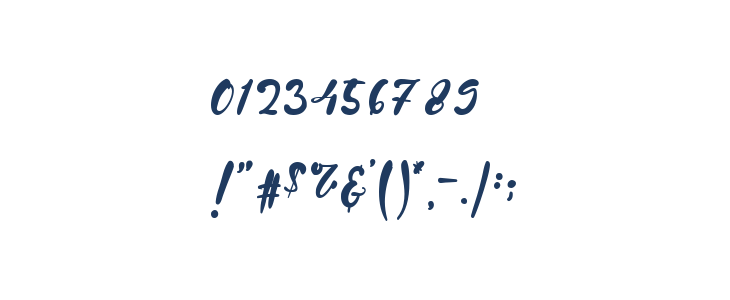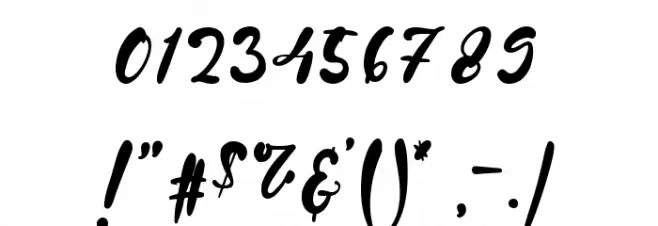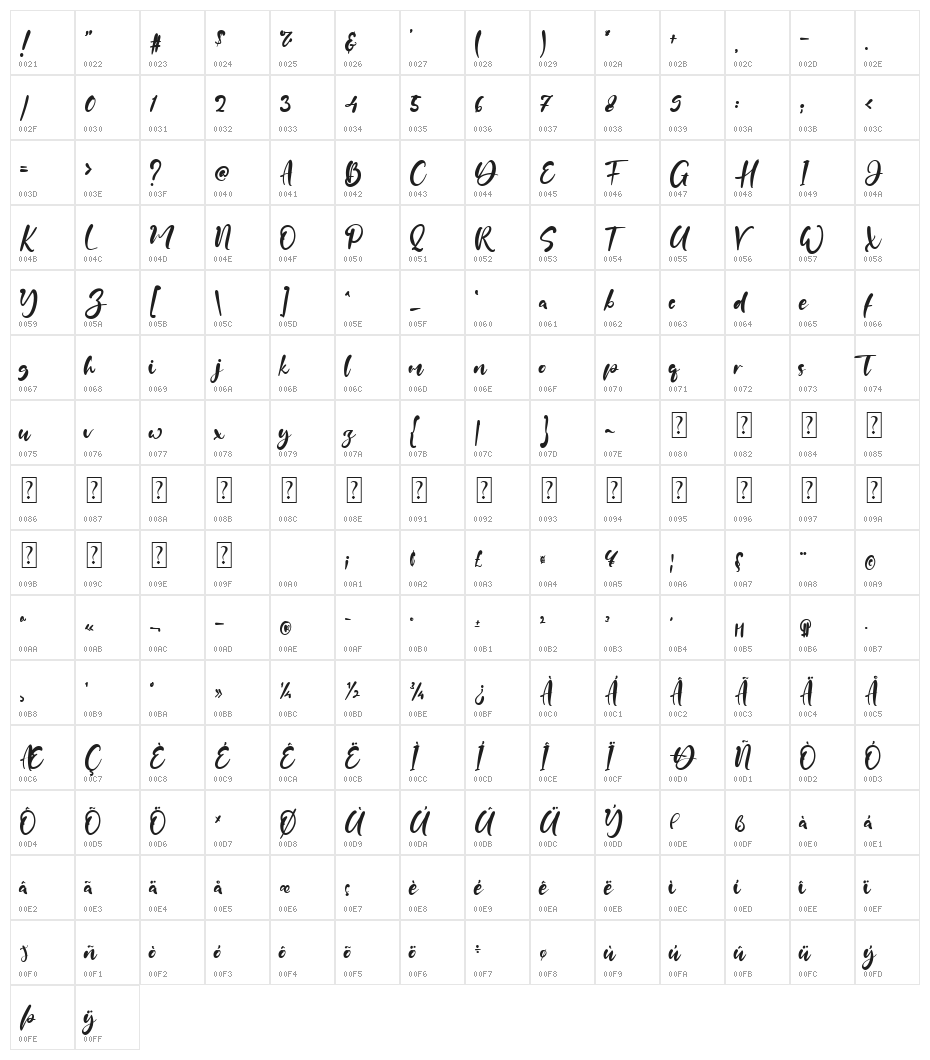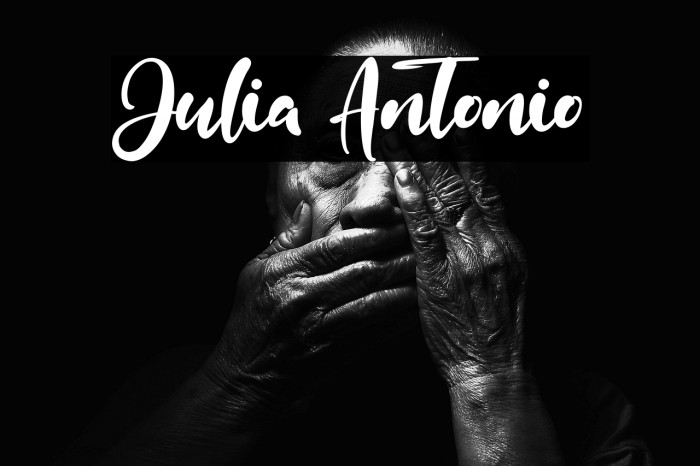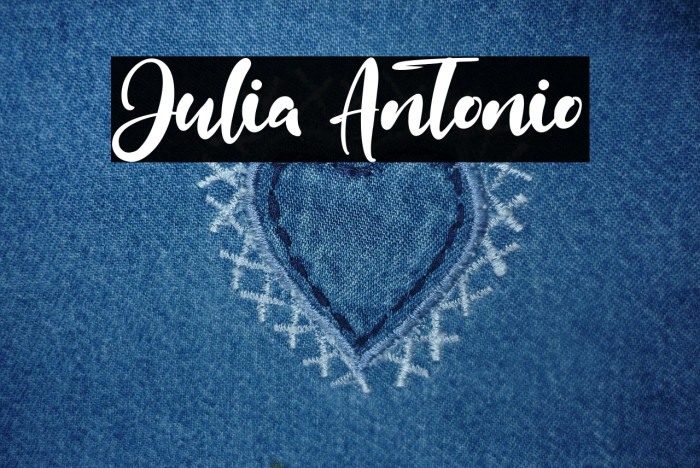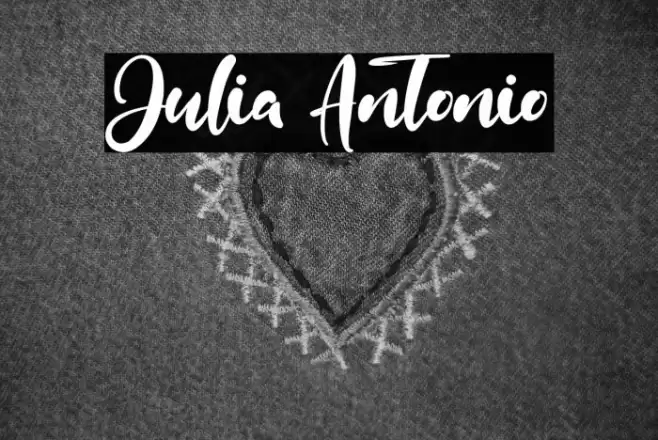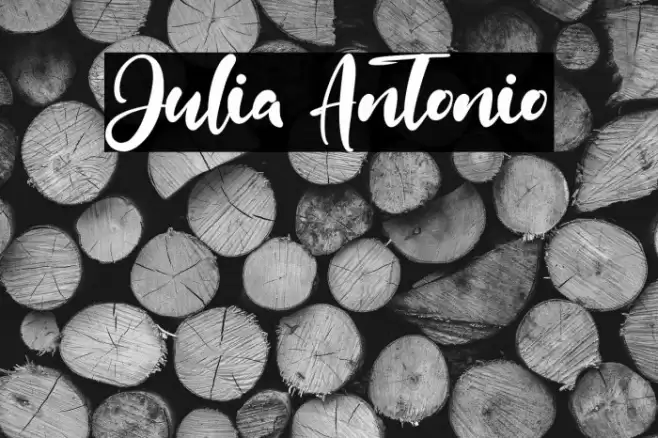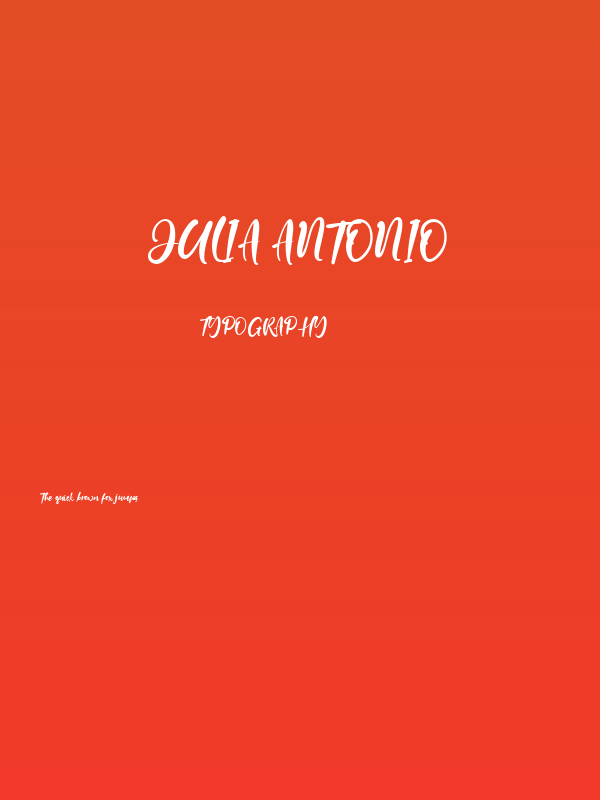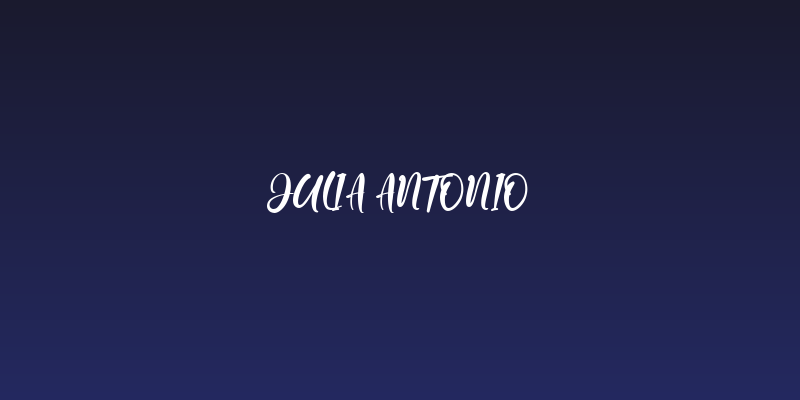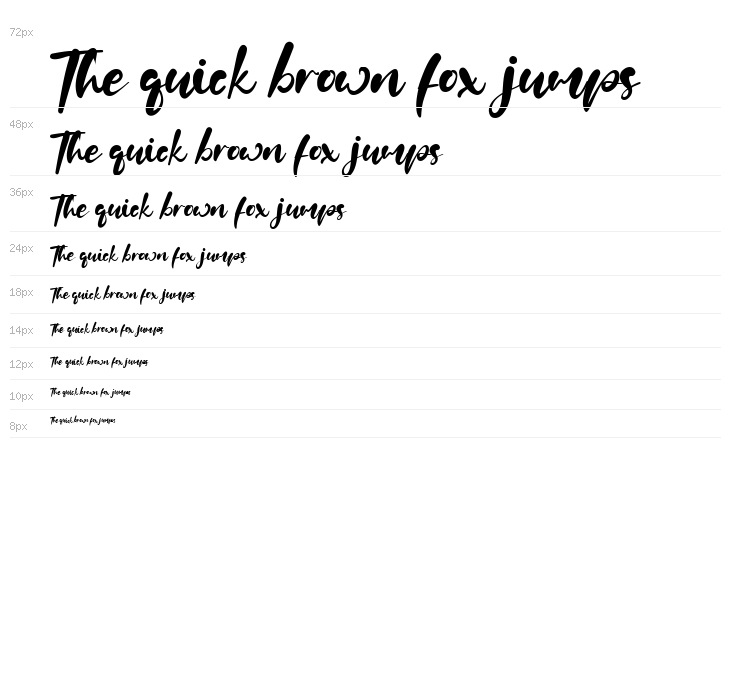
Julia Antonio Font
Julia Antonio Description
This font features a dynamic and flowing script style, characterized by its bold and expressive strokes. The uppercase letters exhibit a sense of movement and elegance, with sweeping curves and a slightly slanted orientation. The lowercase letters maintain a cohesive flow, complementing the uppercase with their rounded and connected forms. The numerals are consistent with the overall style, offering a playful yet sophisticated appearance. Special characters are designed with similar flair, adding versatility to the font. The overall impression is one of creativity and artistic expression, making it suitable for projects that require a personal touch.